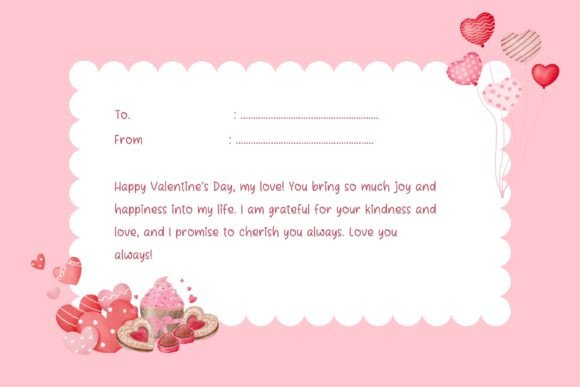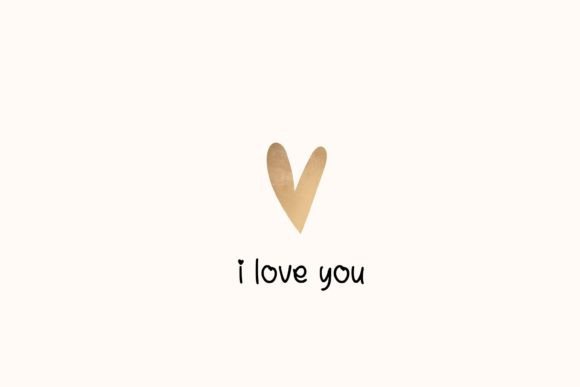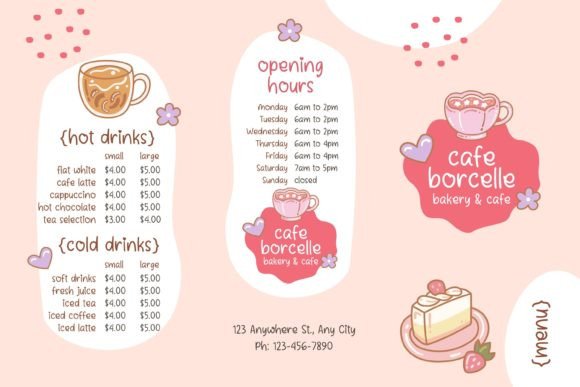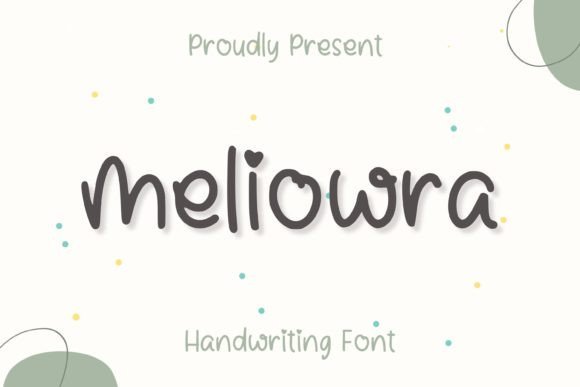
Introduction to Meliowra Font
Introducing Meliowra – a delightfully playful and whimsically fancy handwritten font.
Its unique touch adds a sense of fun and creativity perfect for crafting inviting greeting cards, ornate café menus, distinctive shop price lists, and so much more With Meliowra, your design possibilities are truly countless.
Key Features of Meliowra Font
Why Choose Meliowra Font?
Meliowra Font offers exceptional quality and versatility, making it a valuable addition to your design toolkit. Whether you’re creating for personal projects or commercial use, Meliowra Font delivers professional results.